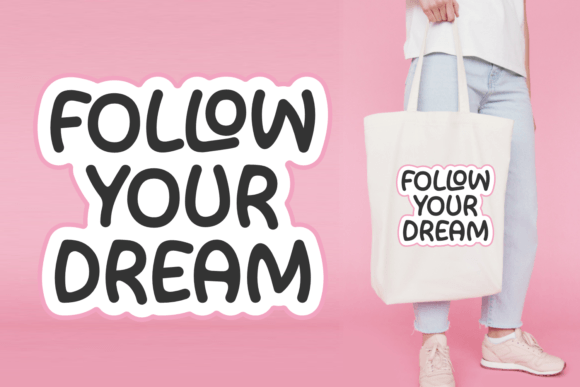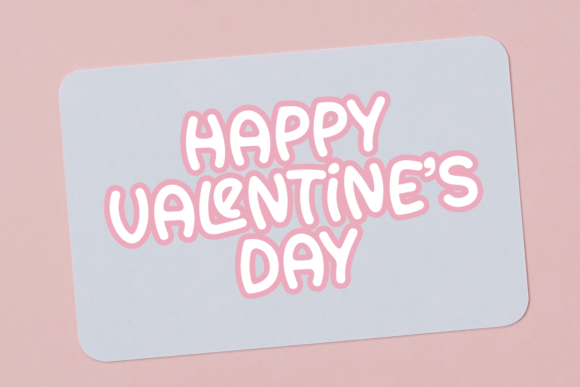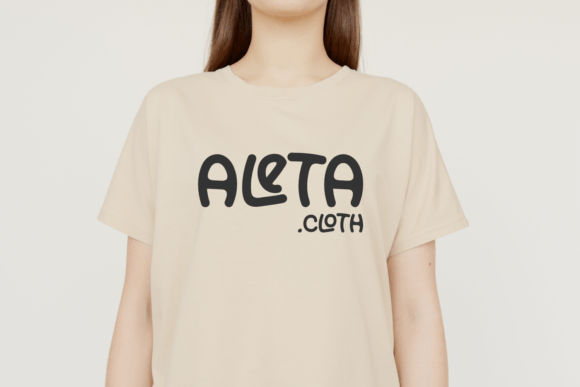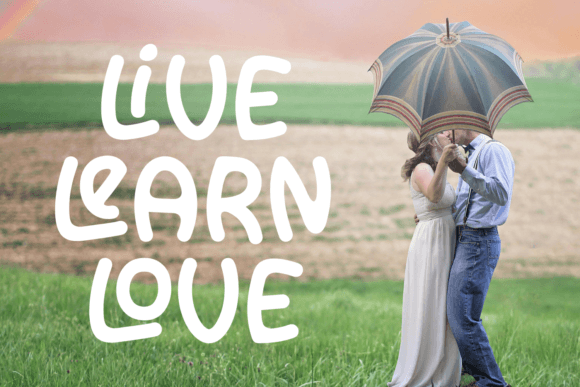
Introduction to Malena Alone Font
Malena Alone is a bold handwritten font that stands out with its strong and confident strokes.
This font brings a touch of uniqueness and personality to your projects, making a bold statement with its distinctive style Perfect for adding a handmade and expressive feel to your designs, Malena Alone is a versatile choice for a range of creative endeavors.
Key Features of Malena Alone Font
Why Choose Malena Alone Font?
Malena Alone Font offers exceptional quality and versatility, making it a valuable addition to your design toolkit. Whether you’re creating for personal projects or commercial use, Malena Alone Font delivers professional results.